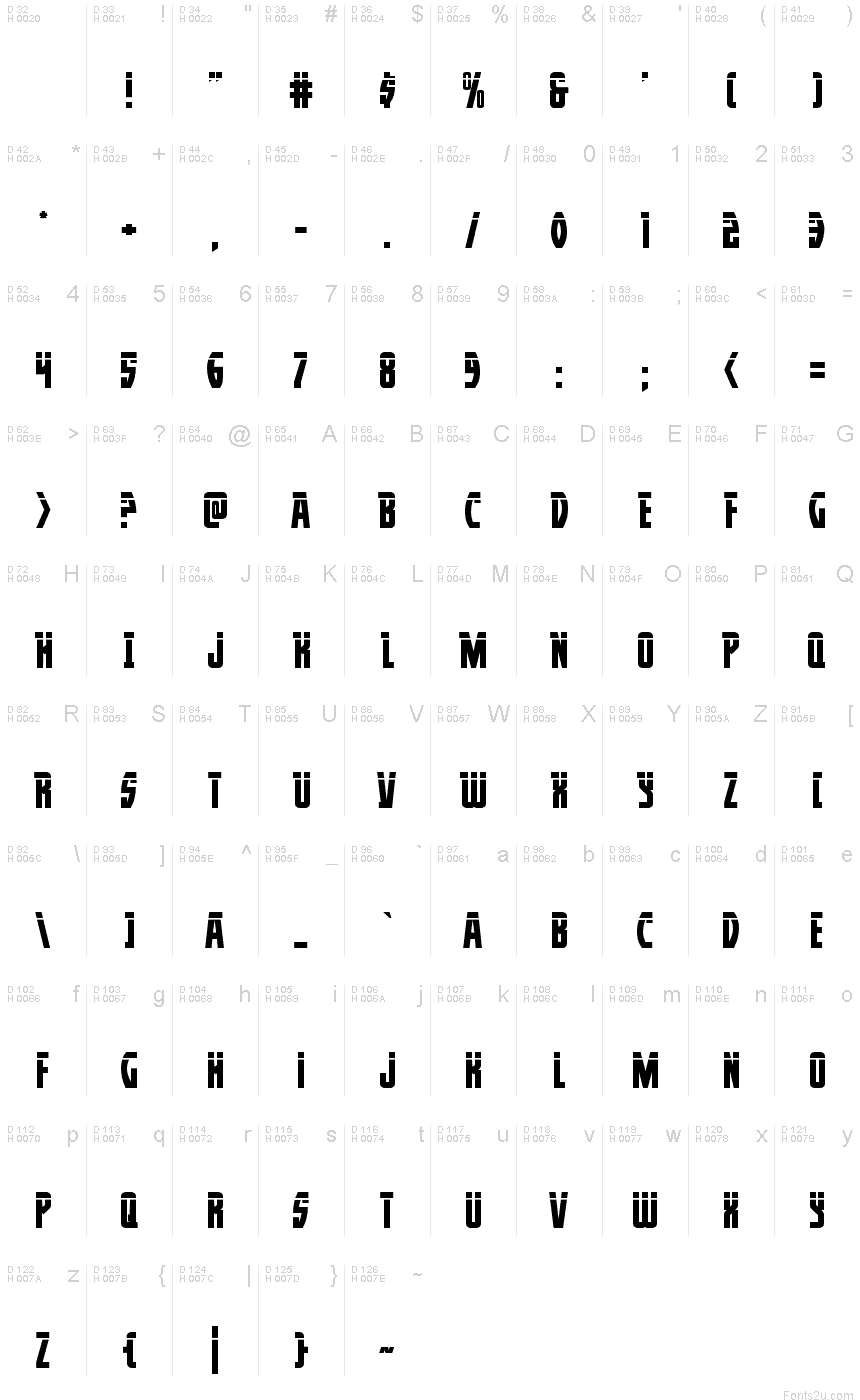
Prowler Laser by Iconian Fonts is a free futuristic display font with extremely tall, compressed capitals. Deep breaks and diagonal joins give the letters a mechanical, laser-cut appearance. Heavy vertical strokes make the narrow forms dense and forceful.
Science-fiction and action audiences are the clearest match for its hard-edged styling, especially on game title cards and film posters. It also suits music merchandise and event graphics, where the broken letter shapes can become a technological interface or targeting motif.
Prowler Laser